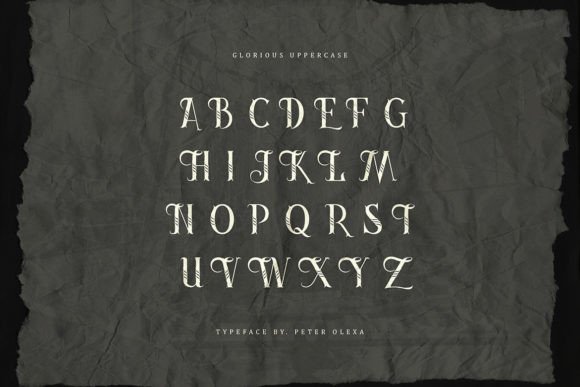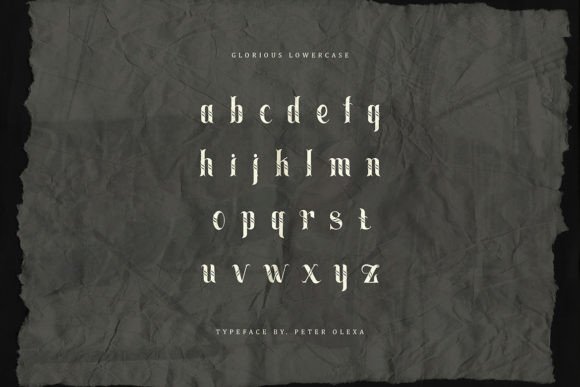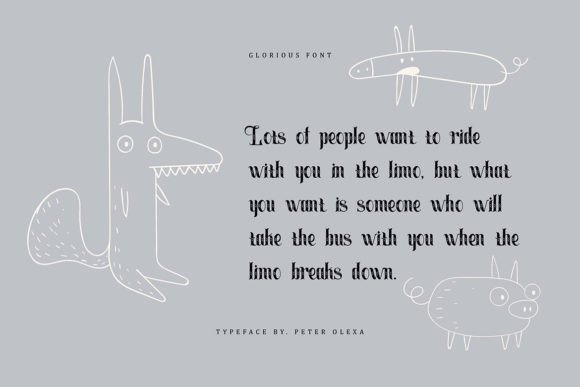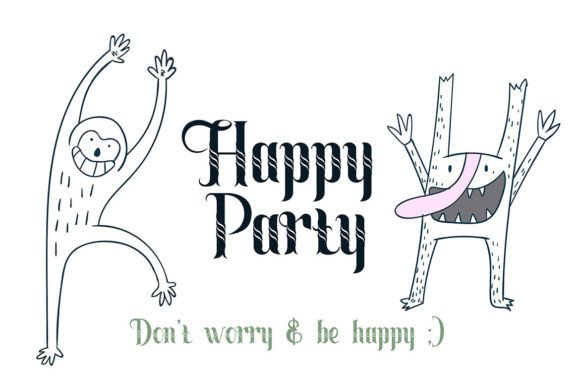
The Glorious Font: A Spooky Serif to Send Shivers Down Your Spine
I’ll never forget the time I was working on a horror movie poster project, and my client asked me to create a title that would make their audience’s skin crawl. I scoured the internet for the perfect font, but nothing seemed quite right. That was until I stumbled upon the Glorious font. Its sharp, haunting edges and spooky serif details sent shivers down my spine, and I knew I had found the one. In this article, I’ll share my experience with the Glorious font, its features, and how to make the most of it in your designs.
An Honest Review of Glorious Font
- ✨ Spooky and Attractive: The Glorious font has a unique blend of spooky and attractive features that make it perfect for horror-themed designs.
- ✅ Highly Legible: Despite its eerie feel, the font is highly legible, even at smaller sizes.
- 👻 Versatile: The Glorious font can be used for a wide range of designs, from horror movie posters to book covers and more.
While the Glorious font is amazing, it’s not perfect. Here are a few things to keep in mind:
- 🤔 Limited Use Cases: While the font is versatile, it’s primarily designed for horror-themed designs. It might not be the best choice for more formal or elegant projects.
- ⚠️ Glyph Limitations: Some users have reported that the font’s glyph set is limited, which can make it difficult to create certain characters or symbols.
The Backstory of Glorious Font
The Glorious font was designed by a team of creatives who wanted to create a font that would capture the essence of horror and the supernatural. Inspired by old horror movies and creepy abandoned mansions, the team crafted a font that’s both spooky and attractive. The result is a font that’s perfect for creating designs that will leave your audience on the edge of their seats.
| Font Name | Glorious Font |
| Author | JumboDesign |
Q: What type of designs is Glorious font best suited for?
A: Glorious font is perfect for horror-themed designs, such as horror movie posters, book covers, and other spooky designs.
Q: Is Glorious font legible?
A: Yes, despite its eerie feel, Glorious font is highly legible, even at smaller sizes.